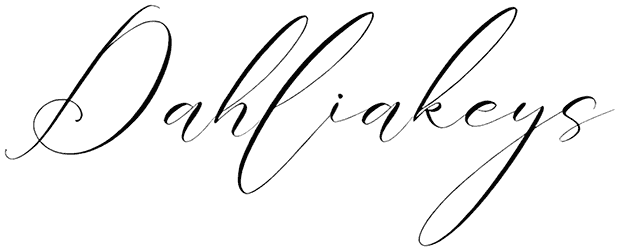
Dahliakeys Font
No one can hold out against the charm of a hand-lettering text, and Dahliakeys is one of the most beautiful. This calligraphy font supports the whole characters in an incredibly elegant font. There is no difference; if you have a formal or informal project, such as business cards, wedding invitations, or handwritten quotes, this poetry font is able to adorn them well with two versions.